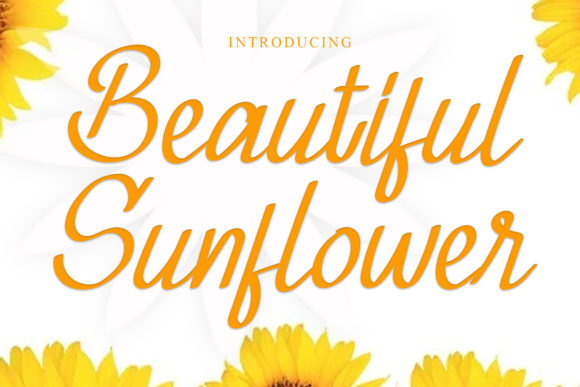
In the realm of digital artistry, there exists a font that captures the essence of warmth, elegance, and jubilance like no other - Beautiful Sunflower. This masterpiece of digital craftsmanship is more than just a collection of letters and symbols; it's an expression of creativity, a breath of fresh air in the world of UI design. Let's dive into the world of Beautiful Sunflower and discover why it's the perfect choice for designers seeking to make a statement.
First, visual aesthetics play a significant role in user engagement, and Beautiful Sunflower delivers in spades. Its graceful strokes and organic flow create an atmosphere of warmth and authenticity that is sure to captivate users' attention. Every curve, every line, every flourish is meticulously crafted to evoke a sense of joy and whimsy, leaving a lasting impression on your audience.
Beyond aesthetics, Beautiful Sunflower is a versatile font that caters to a diverse range of design needs. Its unique charm shines through in wedding invitations, greeting cards, logos, and various other creative projects. Whether you're designing a heartfelt message, a playful invitation, or a striking brand identity, Beautiful Sunflower is your trusty companion, ready to elevate your designs to new heights.
Crafting with Beautiful Sunflower is like taking a stroll through a sun-kissed meadow, where each step unveils a new wonder. Its handwritten strokes possess an organic, human touch that adds a layer of authenticity and relatability to your creations. Say goodbye to sterile, impersonal typography and embrace the warmth and personality that Beautiful Sunflower brings to your designs.
With Beautiful Sunflower, you'll not only create visually stunning designs but also forge an emotional connection with your audience. Its playful nature encourages interaction, making your designs more engaging and memorable. Whether you're a seasoned designer or just starting, Beautiful Sunflower is the perfect font to unleash your creativity and leave a lasting impression on your audience.